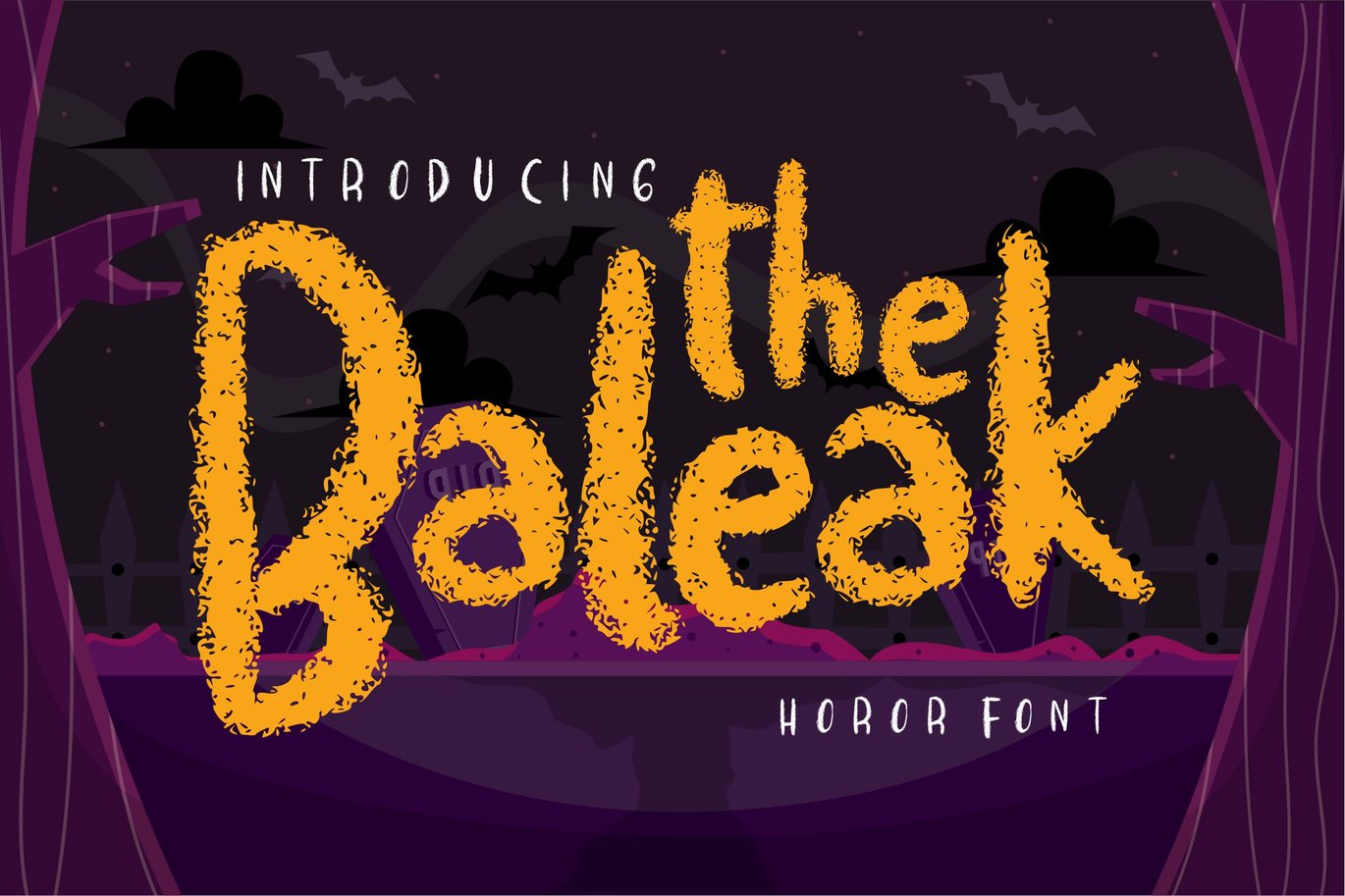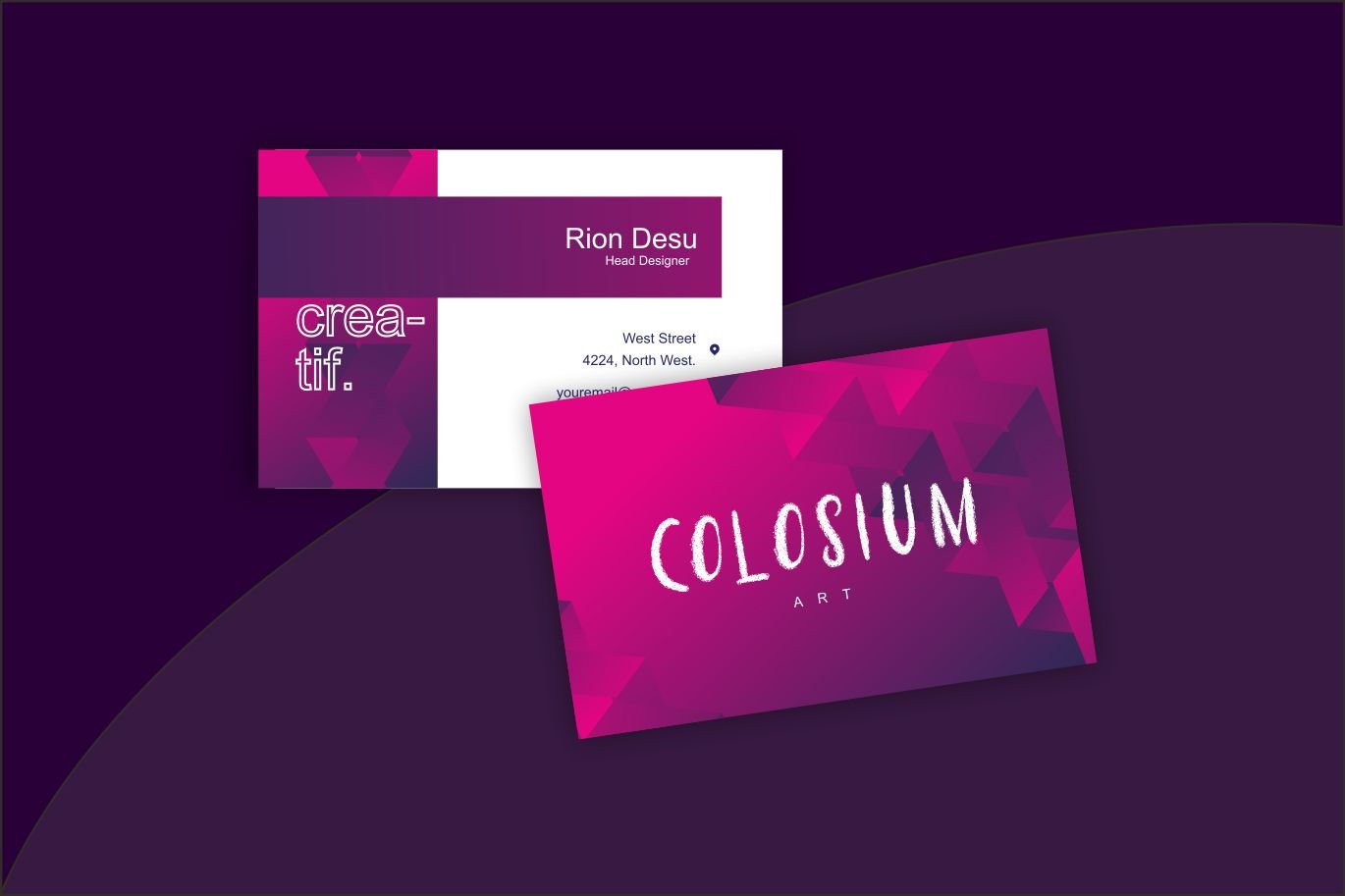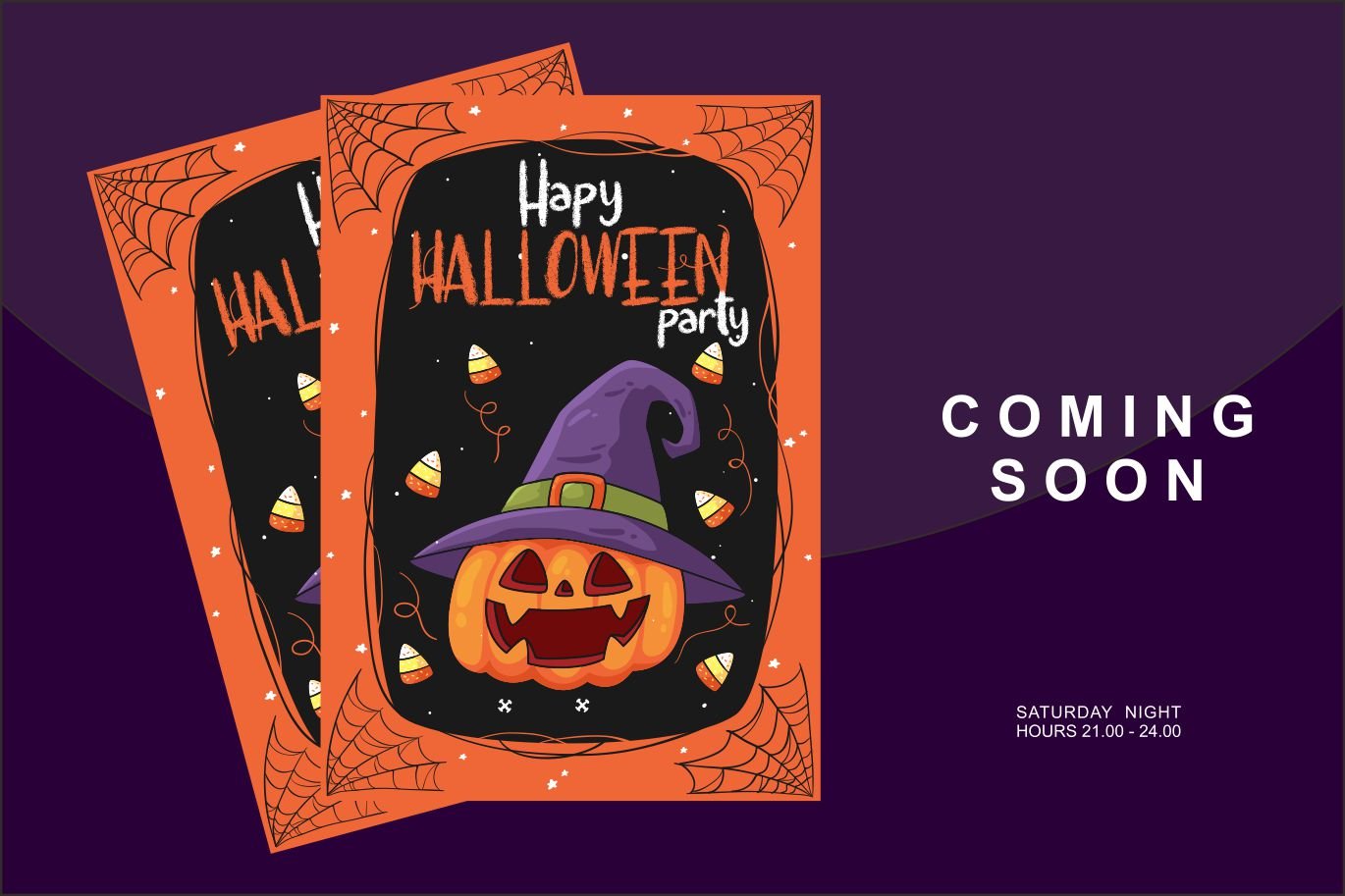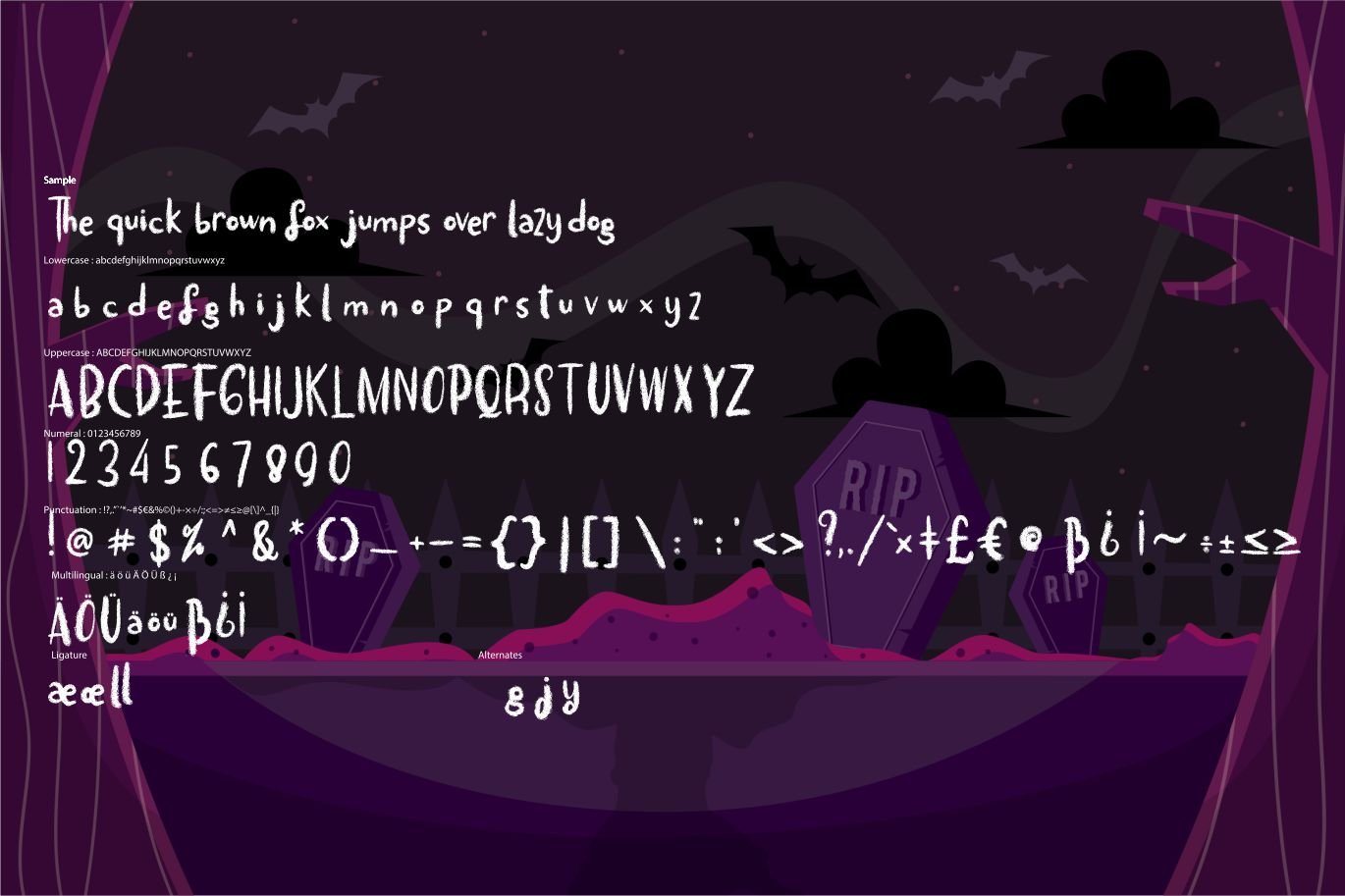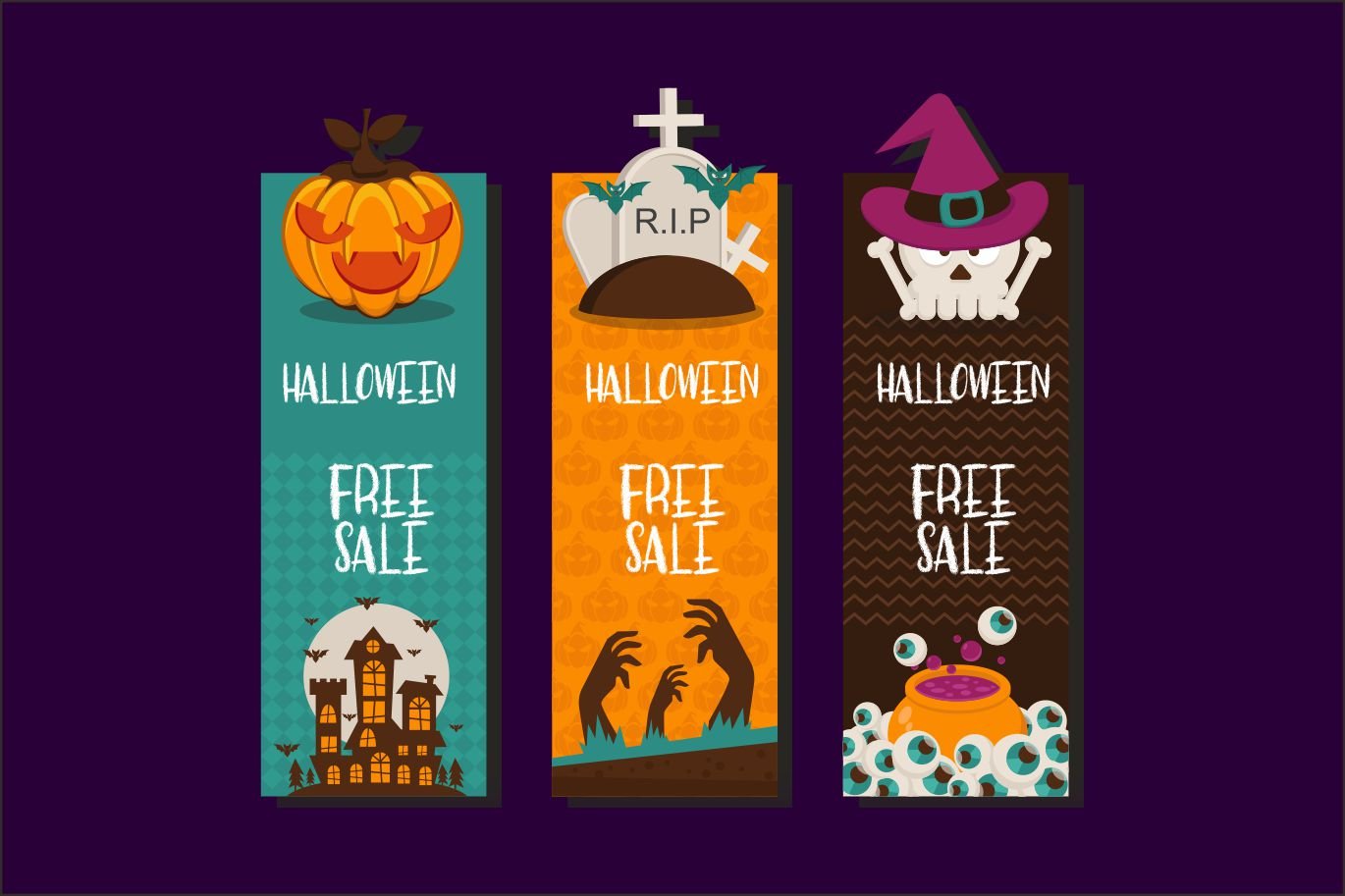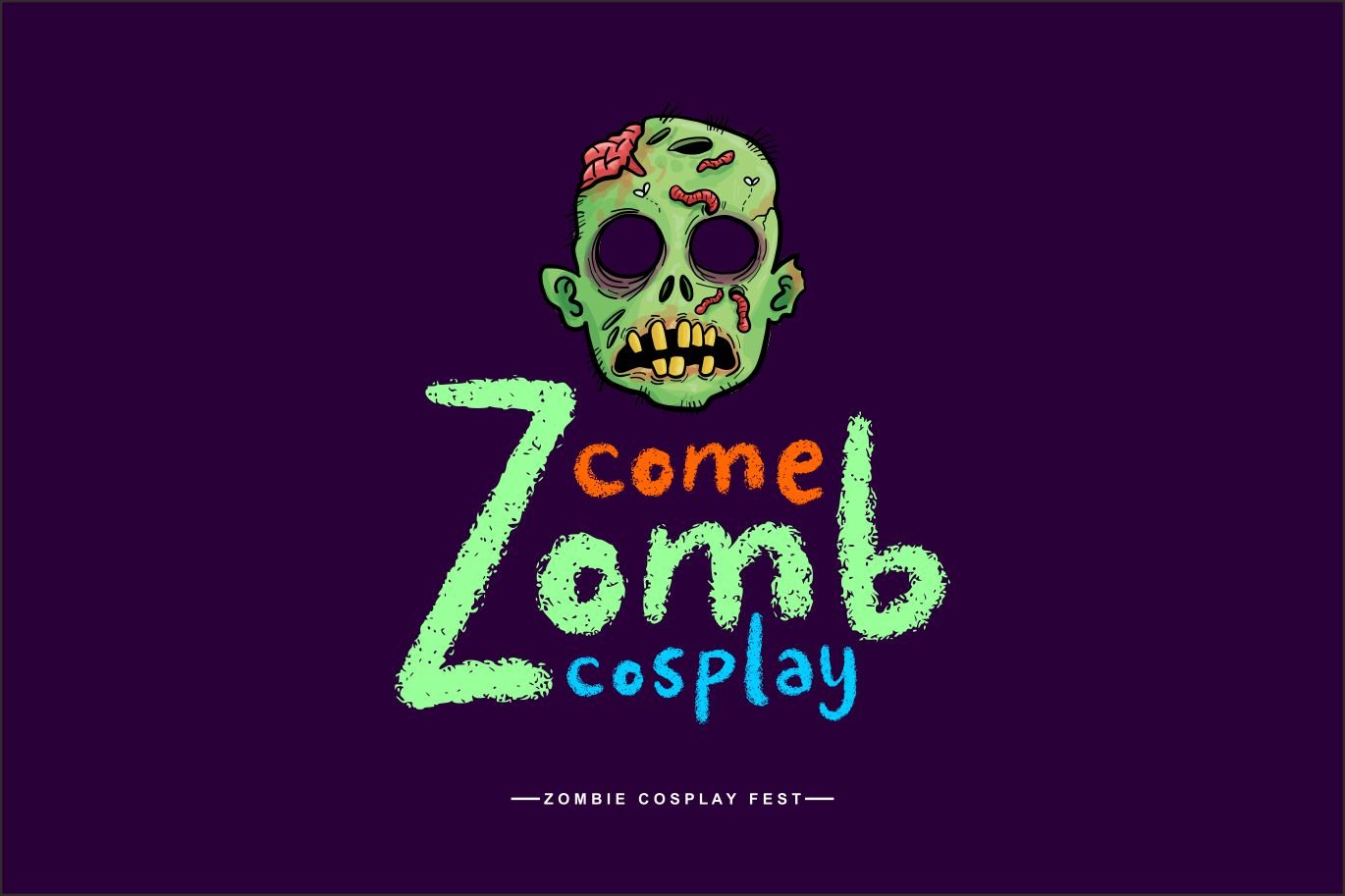
The baleak | Decorative Horror Font
The baleak | Decorative Horror Font with a calligraphy style, So beautiful on invitation like greeting cards, branding materials, business cards, quotes, posters, and more!